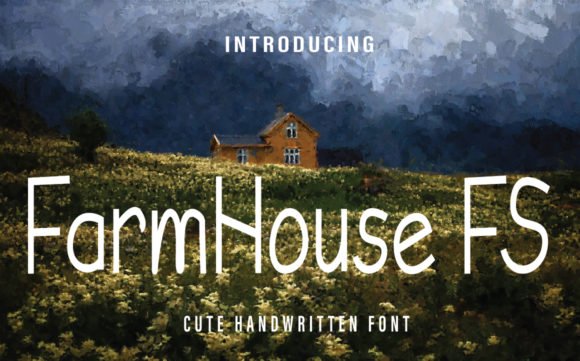
The Sweet Charm of Farmhouse Font
Have you ever been browsing through a vintage market, surrounded by antique signs and distressed wooden crates, and suddenly felt a rush of inspiration for your next creative project? For many designers, this is the moment when the perfect font comes to mind – a font that captures the essence of rustic charm and adds a touch of whimsy to their work. Enter the Farmhouse Font, a sweet and cute handwritten font that’s perfect for adding a personal touch to your designs.
The Farmhouse Font is more than just a font – it’s a tool that helps designers connect with their audience on a deeper level. With its natural and unique style, it’s incredibly versatile and can be used for a wide range of projects, from wedding invitations to product packaging. Whether you’re a seasoned designer or just starting out, the Farmhouse Font is a valuable addition to your toolkit.
Farmhouse Font Key Features
- Font Size and Style: The font family includes multiple weights and styles, ranging from Light to Extra Bold, offering flexibility for designers to choose the perfect fit for their project.
- Unique Characteristics: This font features a distinctive, hand-drawn aesthetic with subtle imperfections, giving it a charming, rustic feel that’s perfect for farmhouse-inspired designs.
Farmhouse Font Review
When I first laid eyes on the Farmhouse Font, I was immediately drawn to its charming, rustic aesthetic. ✨ The font’s unique blend of traditional and modern elements gives it a warm, inviting feel that’s perfect for projects with a country or vintage vibe. ✨ I love how the font’s irregularities and imperfections add to its character, making it feel truly handmade. ✨
In terms of overall impression, I think the Farmhouse Font is a great choice for designers looking to add some personality to their projects. It’s perfect for branding, packaging, and other applications where a unique, eye-catching look is essential. However, it may not be the best fit for every project, and designers should be aware of its limitations before making a decision.
- ✨ Unique, rustic aesthetic
- ✨ Perfect for country or vintage-themed projects
- ✨ Adds a touch of personality to designs
- ⚠️ May not be suitable for projects requiring precision or uniformity
Practical Application Guide for Farmhouse Font
Tips for Getting the Most Out of Farmhouse Font
For the best results, use Farmhouse Font in conjunction with distressed or vintage textures and backgrounds. It’s also a good idea to experiment with different font sizes and styles to create a unique look.
Farmhouse Font is commonly used for:
- Blog headers and titles
- Menu boards and signage
- Invitations and event graphics
- Home decor and furniture labels
Alternatives to Farmhouse Font for Designers